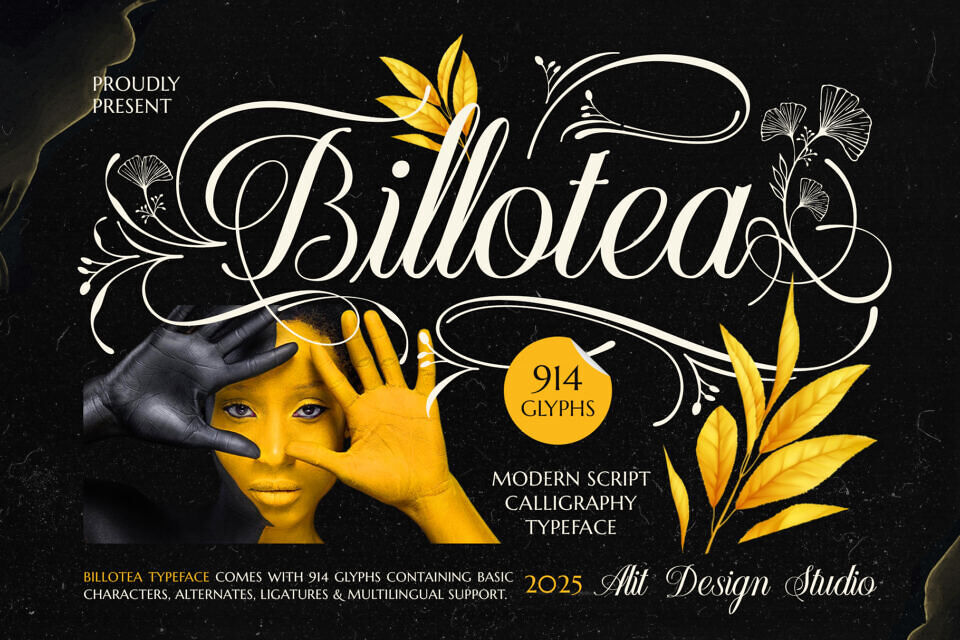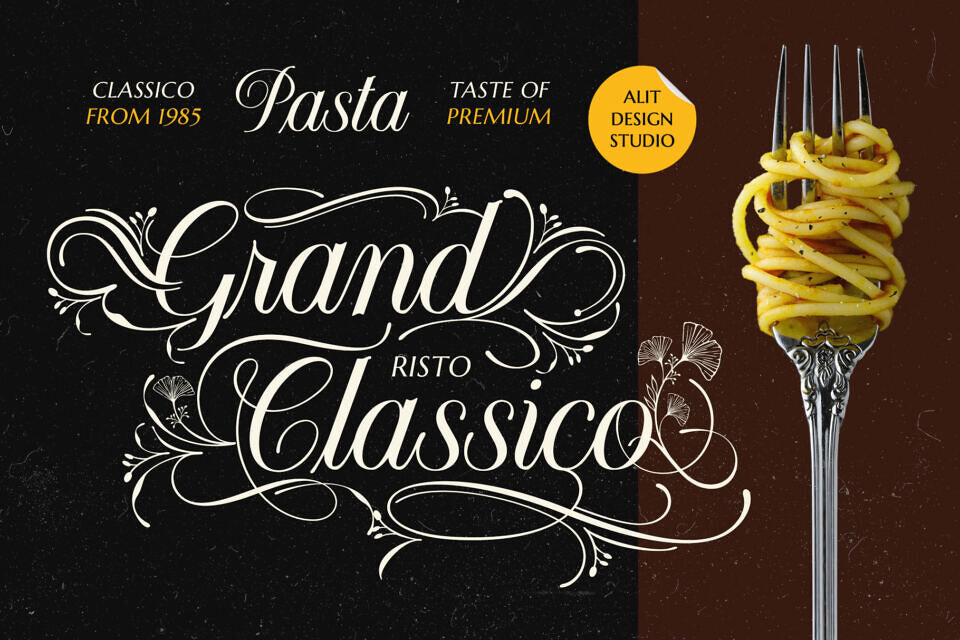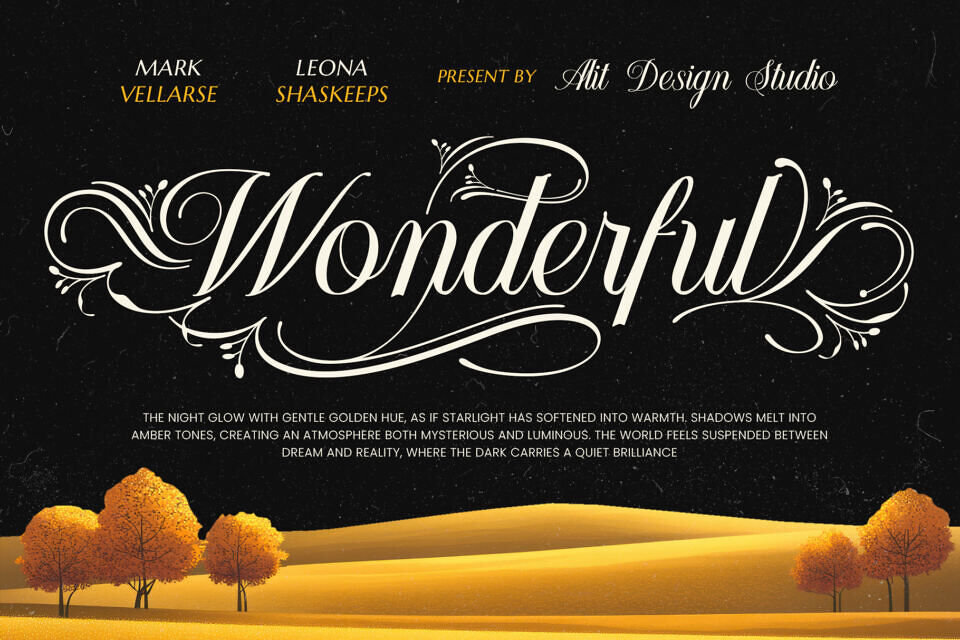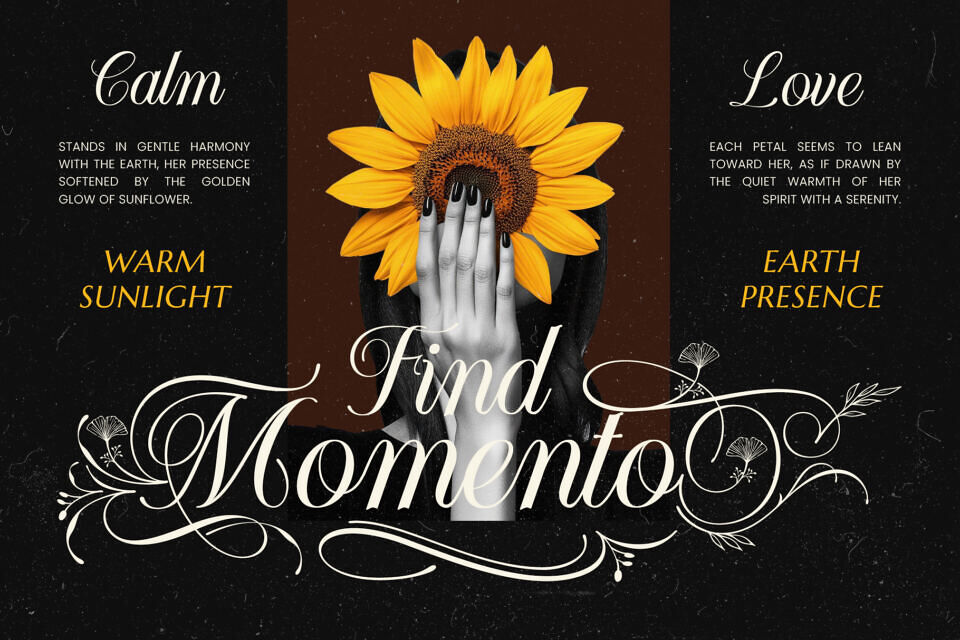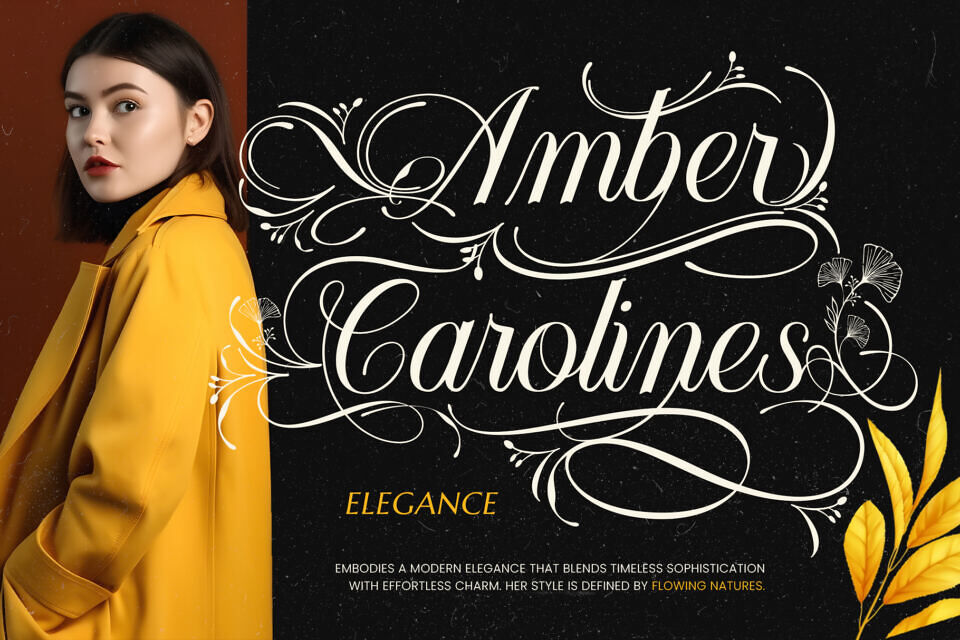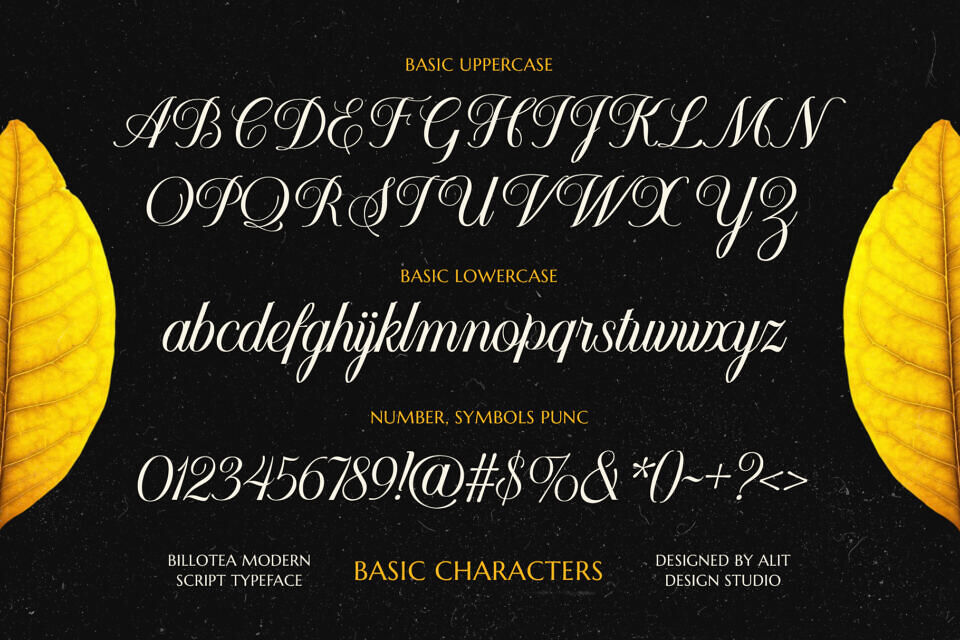
Introducing Billotea Typeface, a masterpiece of modern script that blends the grace of classic calligraphy with the allure of stunning natural ornaments. Designed by Alit Design Studio, Billotea is more than just a font; it is a work of art crafted to bring luxury and organic beauty into your every design.
Each letter in Billotea is designed with high precision, adorned with intricate, abstract floral tendrils that flow beautifully. These ornamental details, inspired by the beauty of ginkgo leaves and wild flora, merge harmoniously with the calligraphic brushstrokes, creating a visual harmony that feels alive, lavish, and unforgettable.